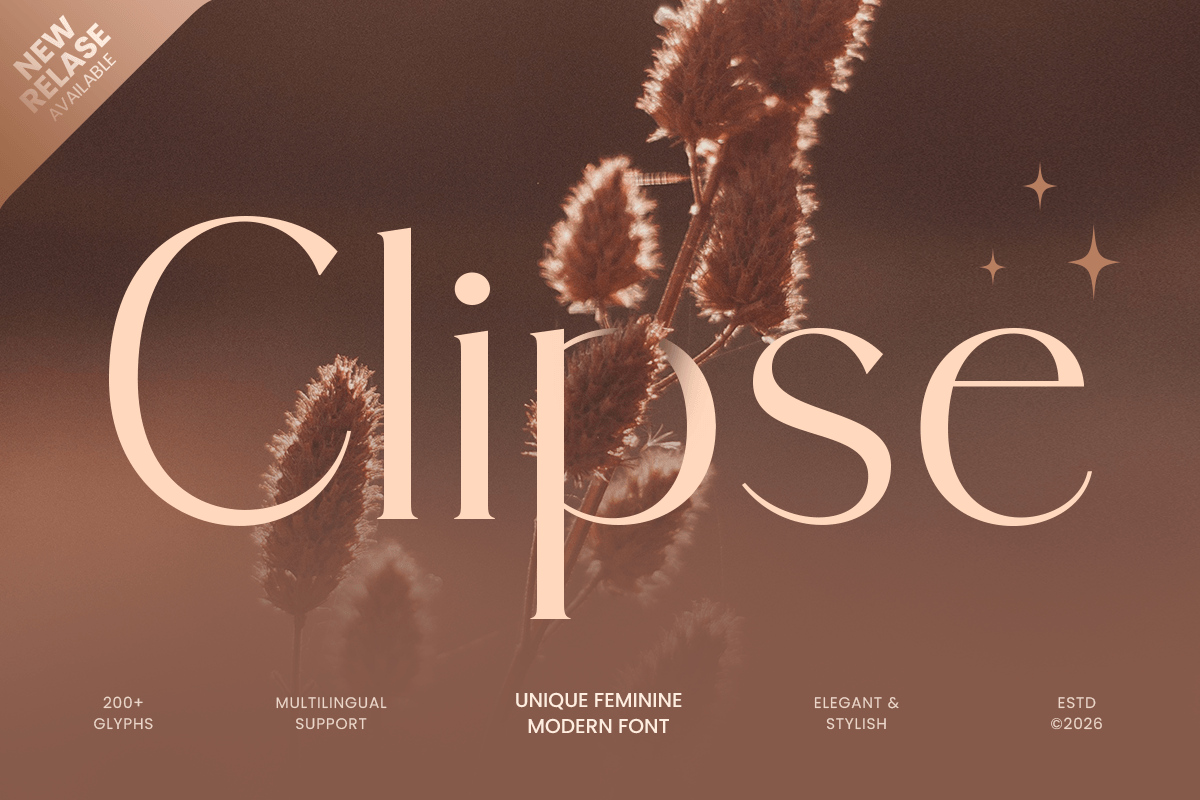
Clipse
-Elegant Feminine Modern Font
Clipse - Elegant Feminine Modern Font
Clipse is a unique feminine modern font designed to bring elegance, softness, and contemporary charm to your creative projects. With graceful letterforms, stylish proportions, and a refined visual rhythm, this typeface is perfect for beauty branding, fashion logos, lifestyle products, editorial layouts, and premium packaging.
Created for brands that want to feel modern yet delicate, Clipse blends feminine aesthetics with clean design structure. Its unique character shapes help your typography feel memorable, polished, and expressive without losing readability. This makes it ideal for boutique identities, skincare labels, wedding stationery, social media graphics, and elegant product displays.
Whether used for a logo, headline, packaging label, or editorial title, Clipse adds a fresh and sophisticated personality to both print and digital designs.
Clipse – Unique Feminine Modern Font Features
• Unique feminine letterforms with a modern elegant style
• Perfect for beauty branding, fashion logos, packaging, and editorials
• Stylish curves and refined proportions for graceful typography
• Ideal for skincare, lifestyle, boutique, wedding, and creative brands
• OpenType features for enhanced typographic styling